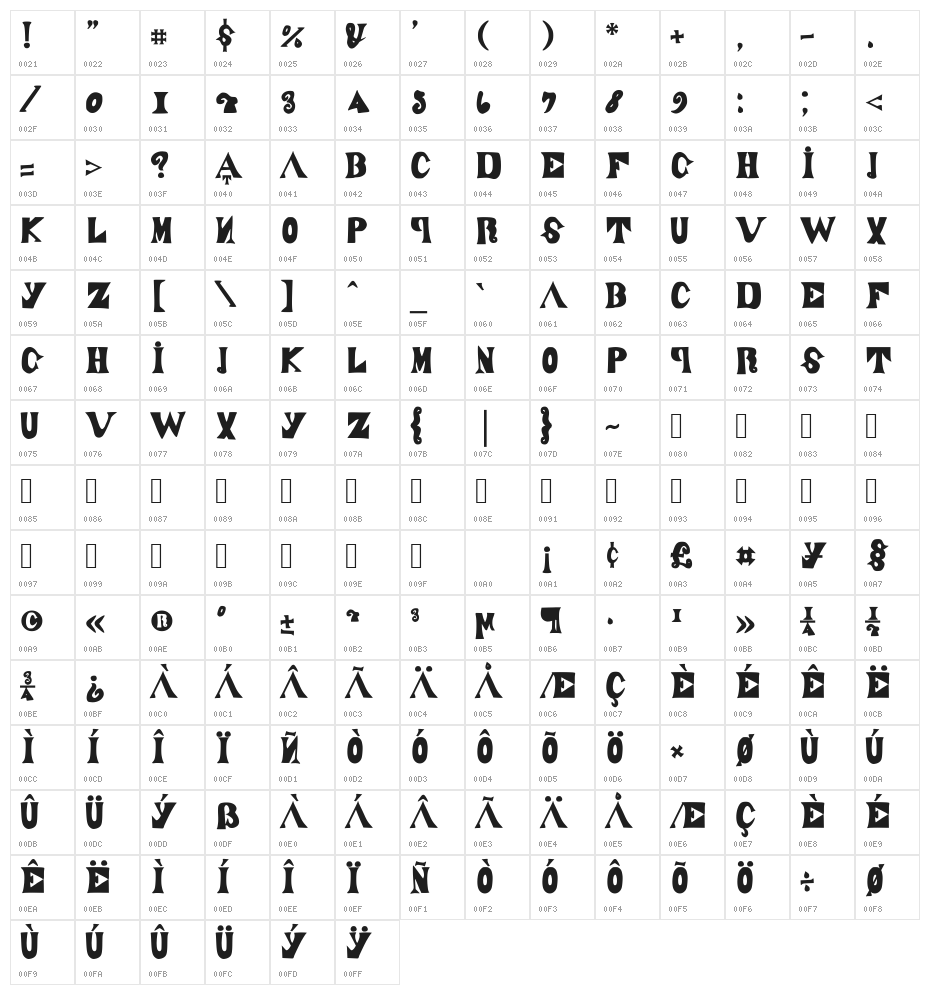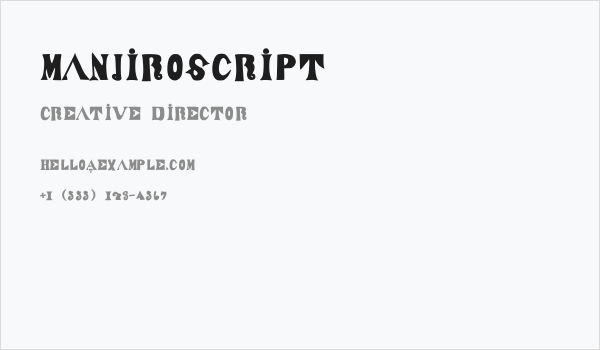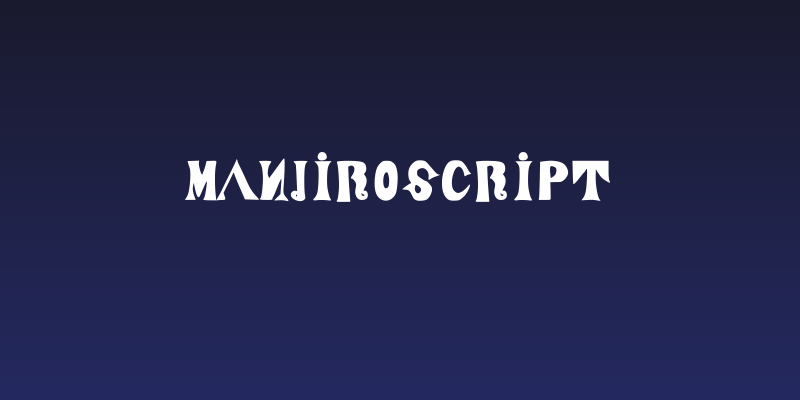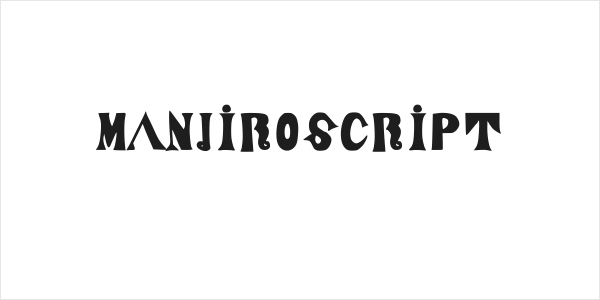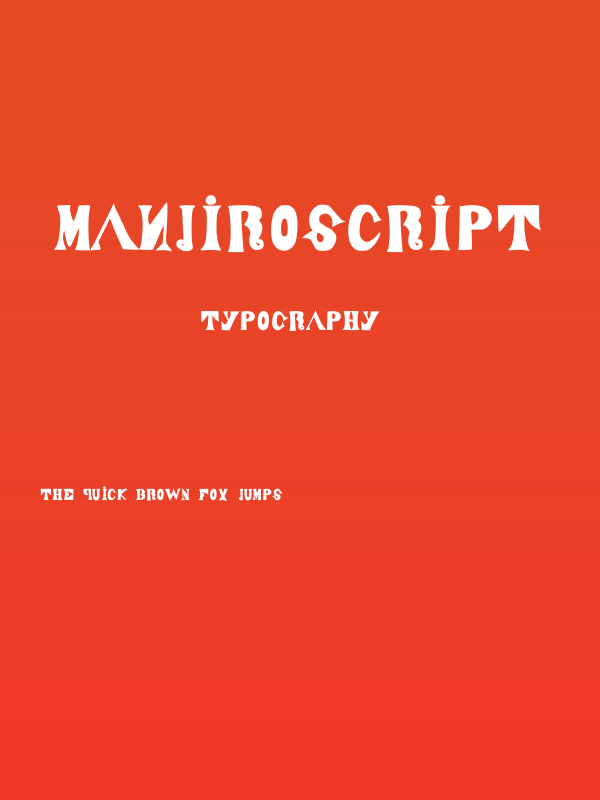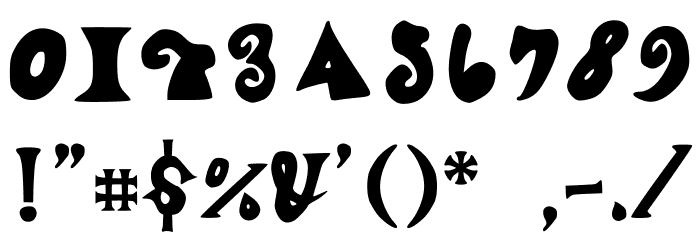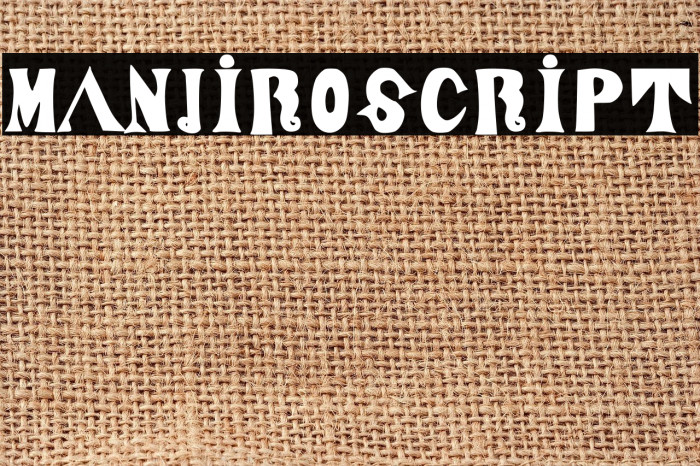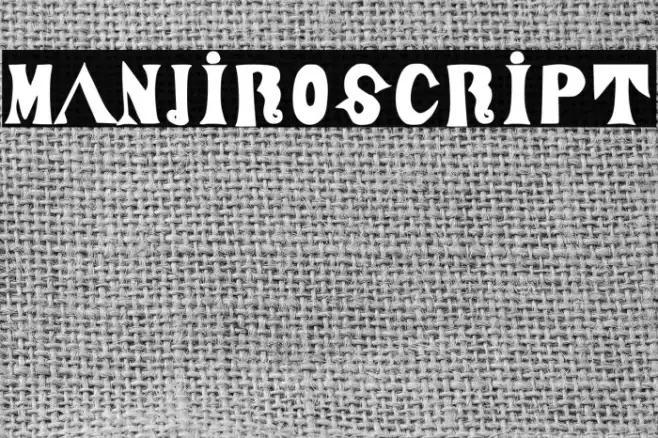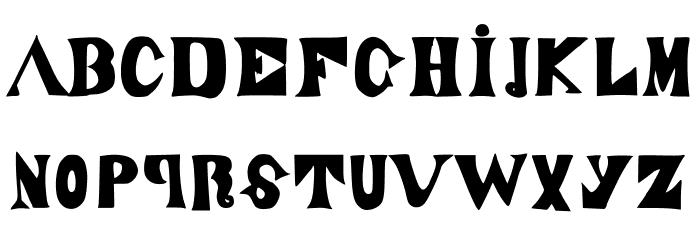
ManjiroScript Font
ManjiroScript Description
This font features a bold and artistic style with unique, irregular shapes that give it a playful and dynamic appearance. The uppercase letters are characterized by their thick strokes and varying widths, creating a sense of movement and energy. The lowercase letters maintain this theme with a slightly more compact form, while still retaining the boldness of the uppercase. The numbers and special characters are equally distinctive, with exaggerated curves and angles that add to the overall whimsical feel. This font is perfect for projects that require a touch of creativity and flair.
| Proposed Projects | Ideal for creative projects such as posters, album covers, and branding that require a bold and artistic touch. |